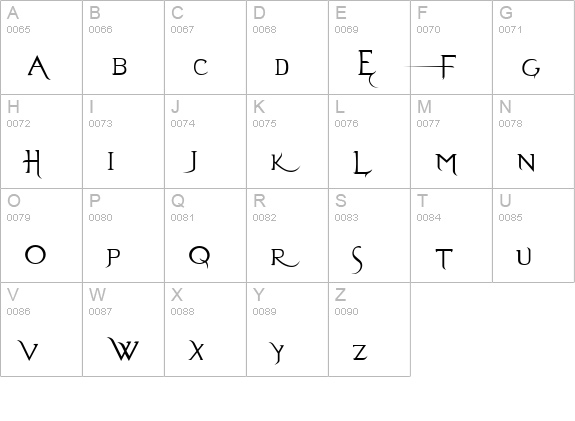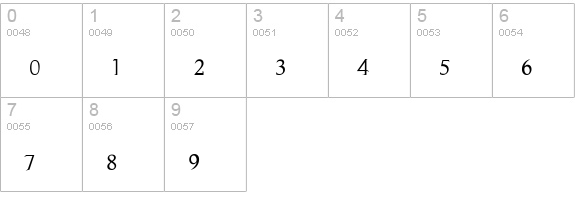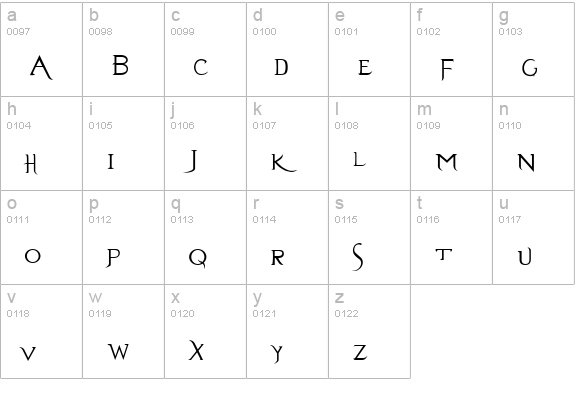
Evanescent Font Details
Introducing Evanescent, a captivating and enchanting font that effortlessly merges elegance with a touch of mystery. This typeface brings a sense of fleeting beauty and ethereal charm to any design project it graces. With its delicate strokes and graceful curves, Evanescent exudes a sense of transience, as if it were a breath of fresh air that vanishes as quickly as it appears. Evanescent is the perfect choice for those seeking a font that exudes a sense of elusive charm and sophistication. Whether used for invitations, logos, or editorial layouts, this font effortlessly captures attention and creates a mesmerizing visual experience. It adds a touch of intrigue and allure to any design, leaving a lasting impression on the viewer's mind. What makes Evanescent even more appealing is that it is freely available to download at FontsMarket.com. This means that you can add this captivating font to your collection without any cost, allowing you to explore its endless creative possibilities without limitations. With just a few clicks, you can unlock the magic of Evanescent and infuse your designs with a hint of otherworldly beauty. So, why wait? Embrace the ephemeral and download Evanescent today. Let its evanescent nature inspire your imagination and elevate your designs to new heights. Whether you're a designer, a creative professional, or someone who simply appreciates the beauty of typography, Evanescent is a font that will leave you spellbound. Download it now at FontsMarket.com and embark on a journey of captivating design possibilities.